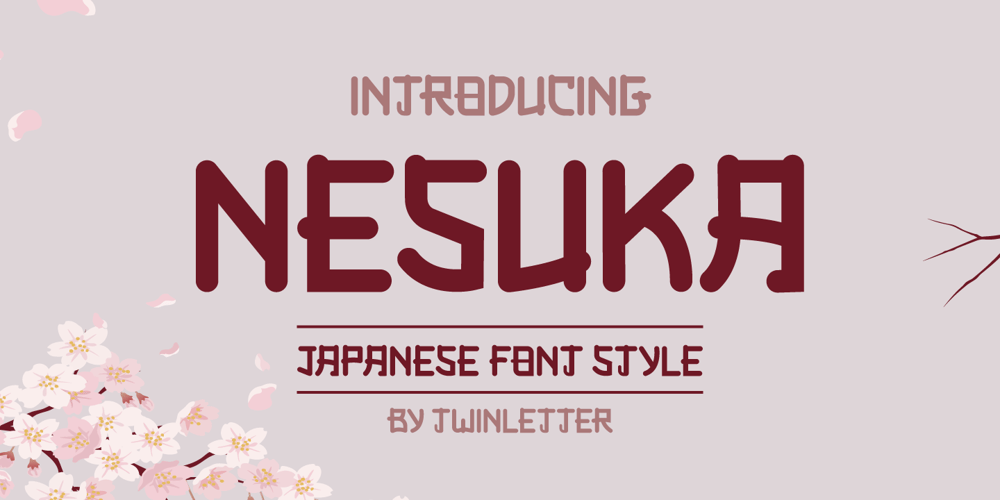
Nesuka Faux Font Family was designed by Rozikan and published by Twinletter. Nesuka Faux contains 1 styles and family package options. Nesuka is a display font with a laid-back and playful vibe. This typeface is ideal for projects that demand a more natural and unique handwriting style than typical. Of course, your project will seem fun and lovely if you use this font.Logotypes, food banners, branding, brochure, posters, movie titles, book titles, quotes, and more may all benefit from this font.Of course, using this font in your various design projects will make them excellent and outstanding; many viewers are drawn to the striking and unusual graphic display.Start utilizing this typeface in your projects to make them stand out.